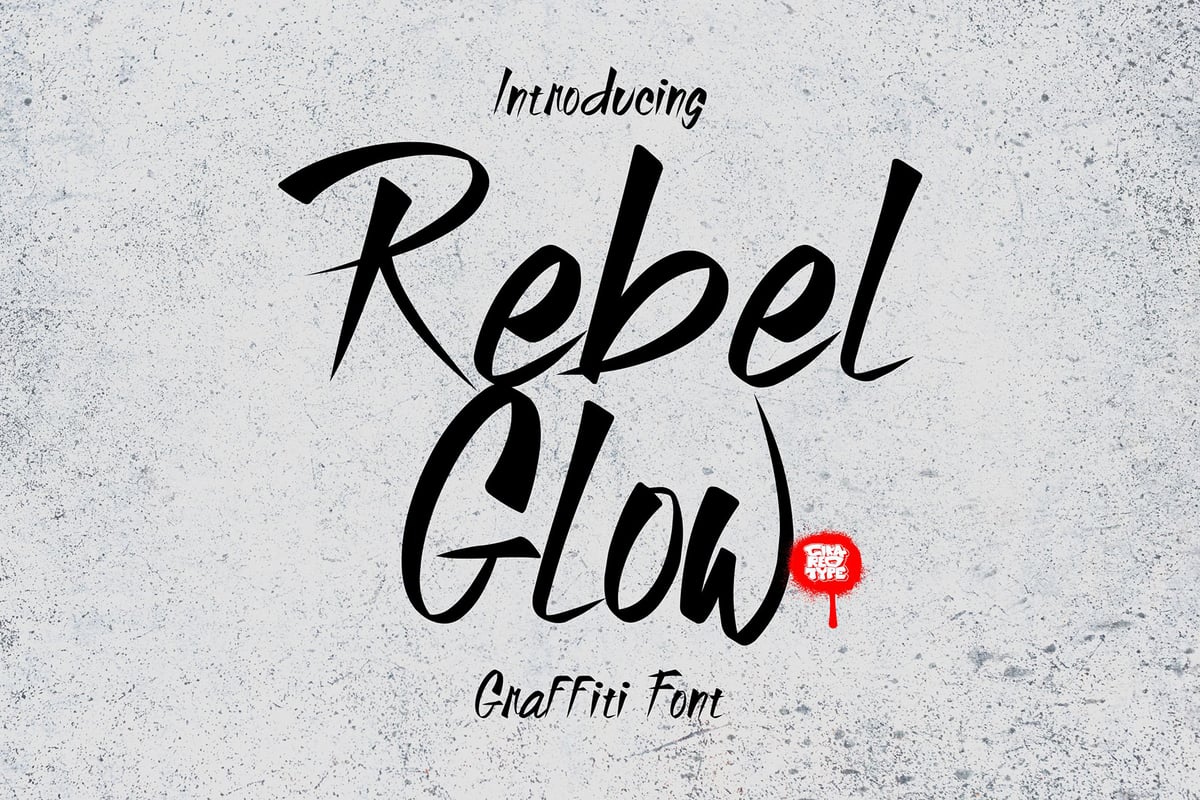
Rebel Glow
Rebel Glow is a bold, expressive brush font that radiates rebellious energy and creativity. Crafted with natural brush strokes, this font brings a raw, untamed feel to any project, perfect for designers looking to make a powerful statement.